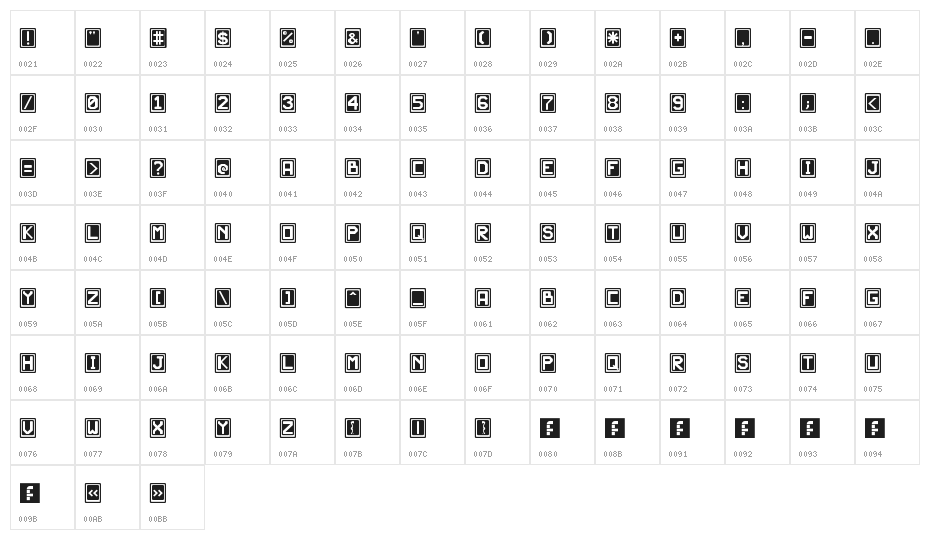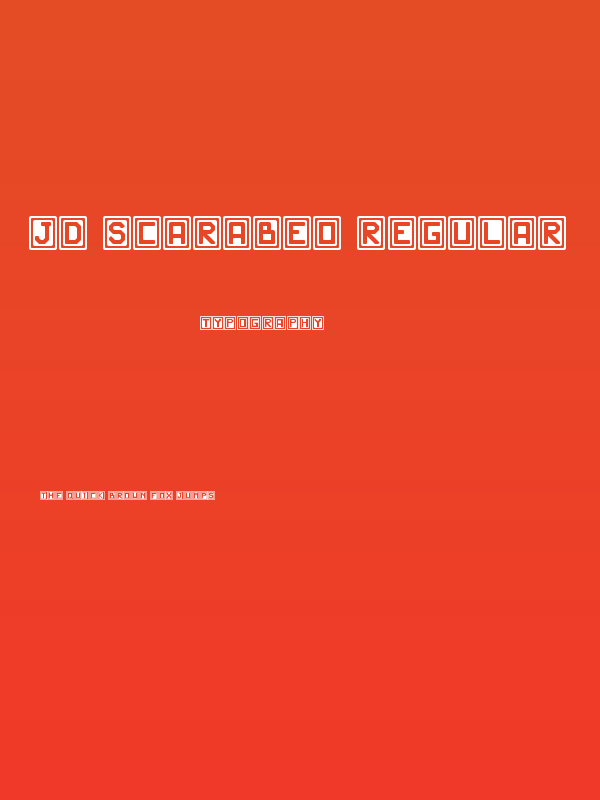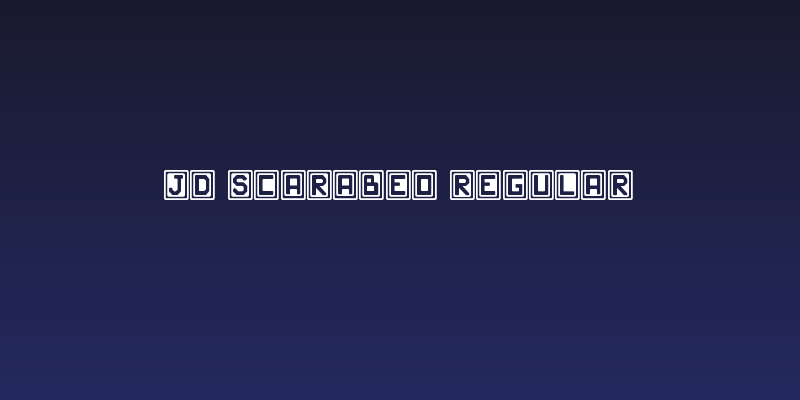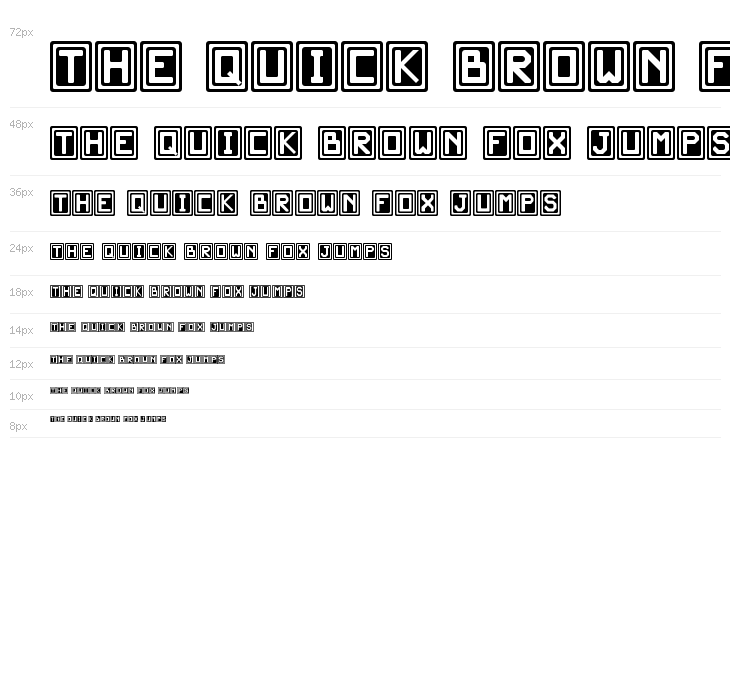
JD Scarabeo Regular Font
JD Scarabeo Regular Description
This font features a bold, geometric design with each character enclosed in a square border, creating a striking and modern appearance. The letters and numbers are uniformly styled with sharp, clean lines and a consistent thickness, giving the font a cohesive look. The use of a solid black background with white characters enhances readability and adds a dramatic flair. The special characters maintain the same boxed style, ensuring visual consistency across all elements. This font's unique boxed presentation makes it stand out, ideal for projects that require a bold and eye-catching typeface.
| Proposed Projects | Ideal for posters, signage, branding, and any project needing a bold, attention-grabbing typeface. |